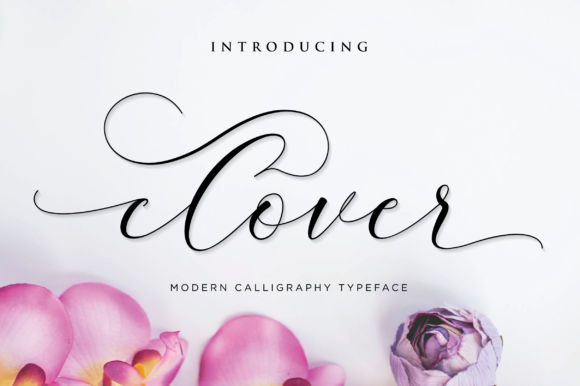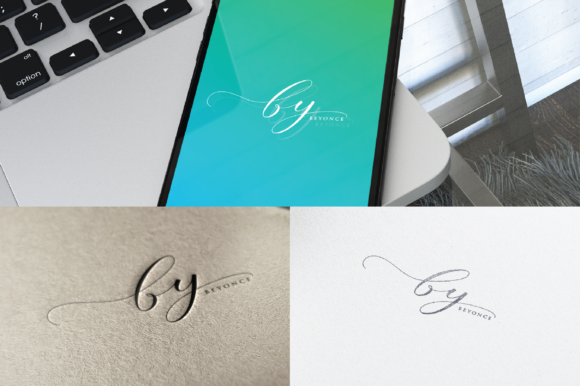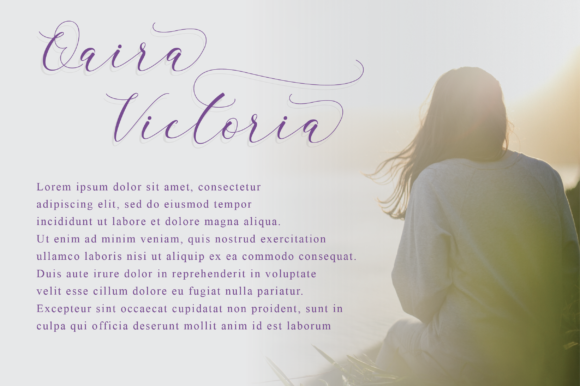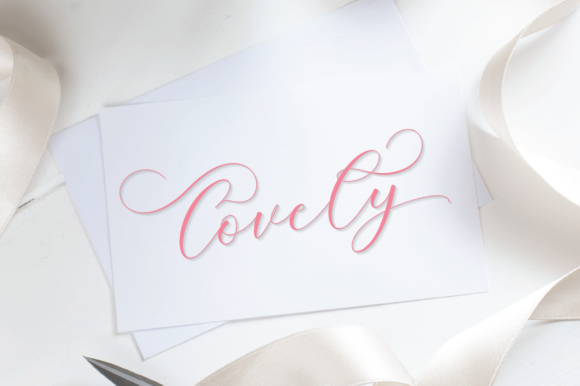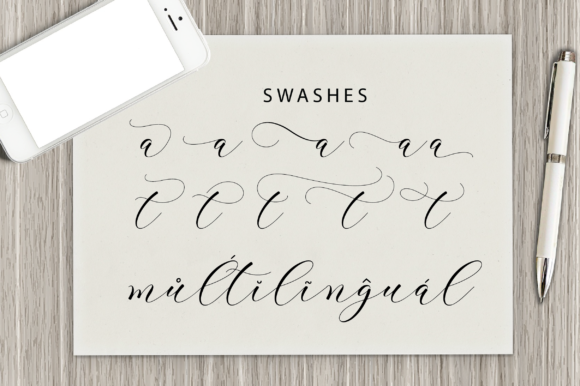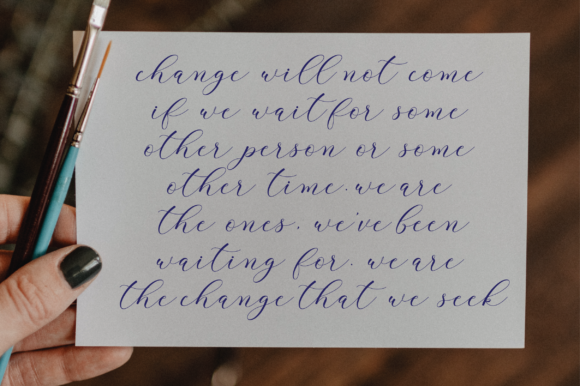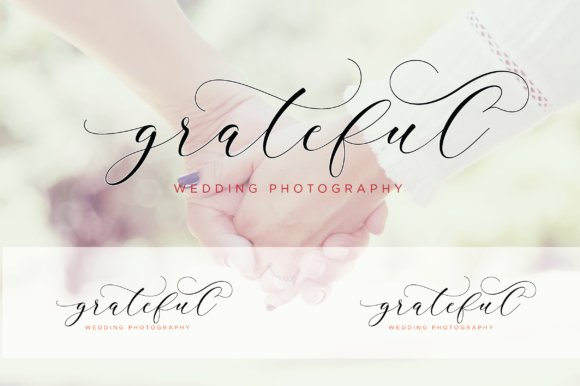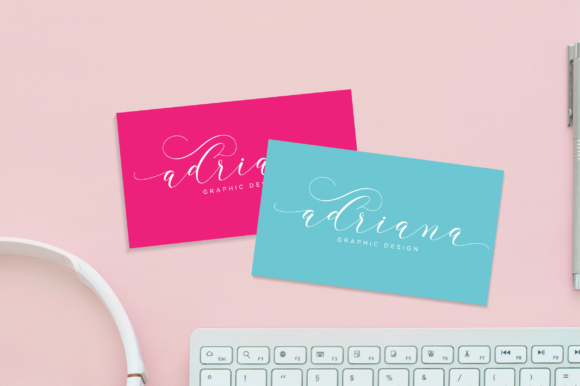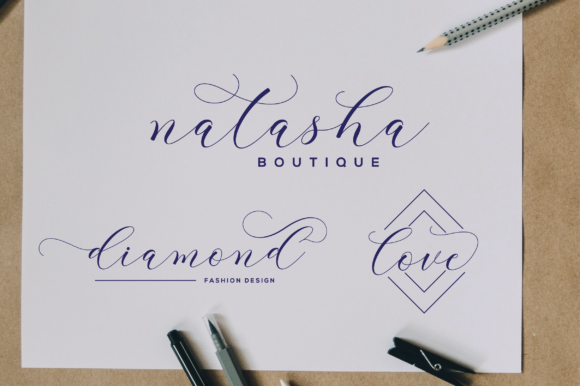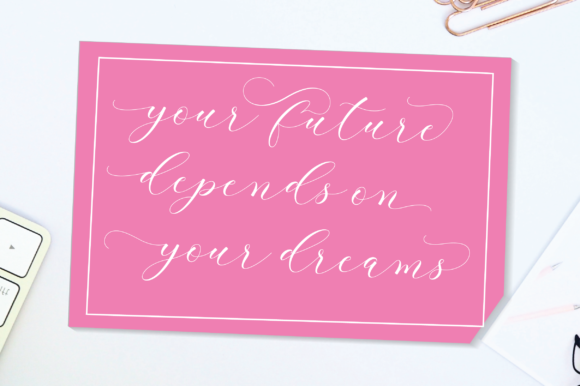
Clover Font
Clover is a delicate, lovely and adorable handwritten font with an incredibly romantic twist. It will turn any design idea into a stand out.